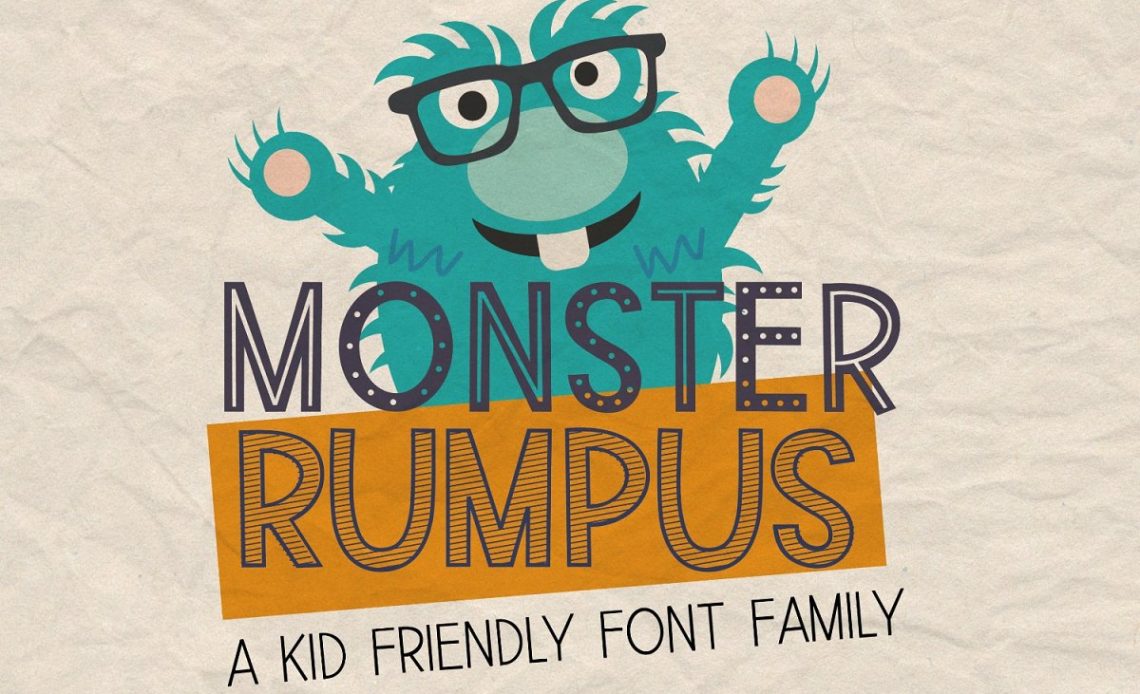
Are you ready to dive into a world of playful and captivating fonts? Look no further than the New!! Monster Rumpus Font collection! Created by the talented Sabrina Schleiger, this font family is a must-have for anyone looking to add a touch of whimsy to their designs.
With three weights to choose from - skinny, semibold, and bold - and a whopping five styles, Monster Rumpus offers endless possibilities for your creative endeavors. Whether you're a teacher, a crafter, or simply someone who loves to experiment with fonts, Monster Rumpus is the perfect choice.
Let's talk about the star of the show - Monster Rumpus Spunky! This fun and energetic font will instantly bring a burst of excitement to any project. With its spunky letters and lively vibe, it's bound to catch the eye of anyone who sees it. And if one variation isn't enough, we've got you covered with Monster Rumpus Spunky Two!
But that's not all. In this collection, you'll also find Monster Rumpus Caps, an all caps inline font that adds a bold and striking element to your designs. Looking for something a little different? Monster Rumpus lower case is an all caps dotty font that adds a playful touch to any project.
And let's not forget about layering! Monster Rumpus Two Caps is a hatched font specifically designed for layering, allowing you to create unique and eye-catching combinations. And if outlined fonts are more your style, Monster Rumpus Two lower case is here to fulfill your layering dreams.
The possibilities are truly endless with the Monster Rumpus Font collection. Whether you're designing for kids, creating educational materials, or simply want to inject some fun into your projects, these fonts will not disappoint. So why wait? Download the Monster Rumpus Font collection today and let your creativity run wild!